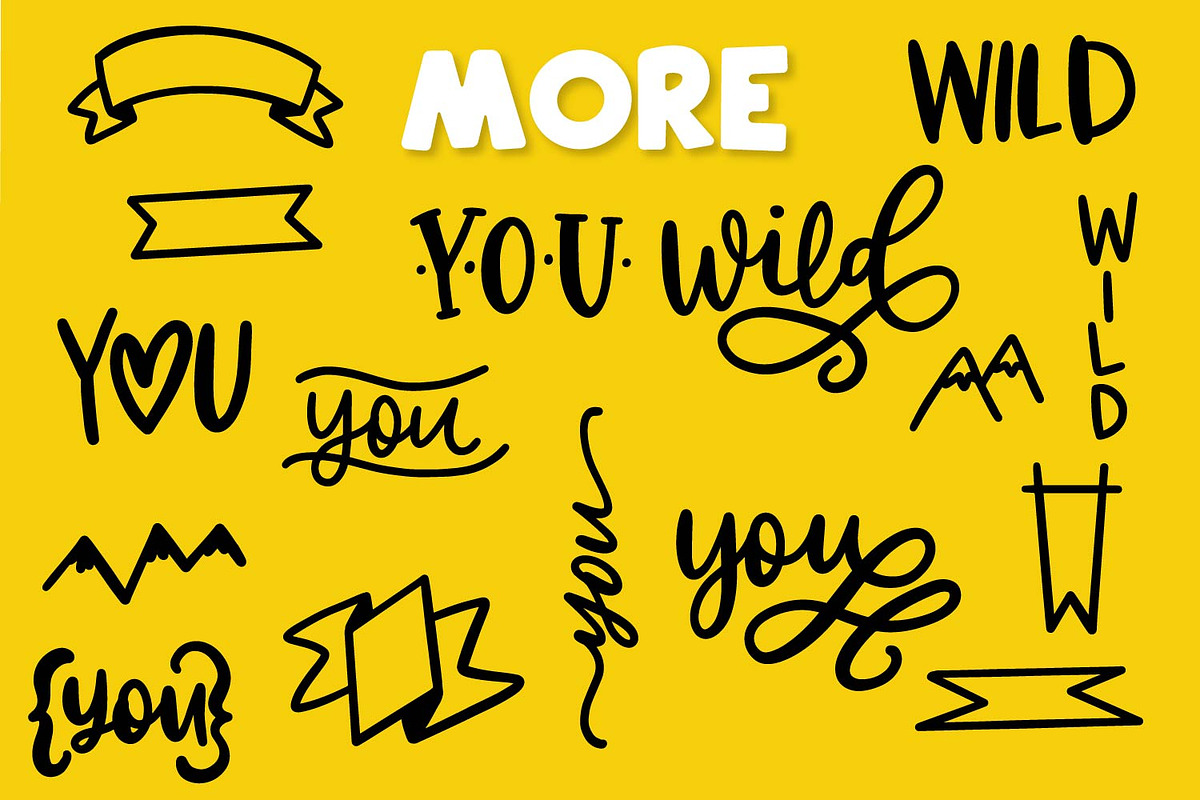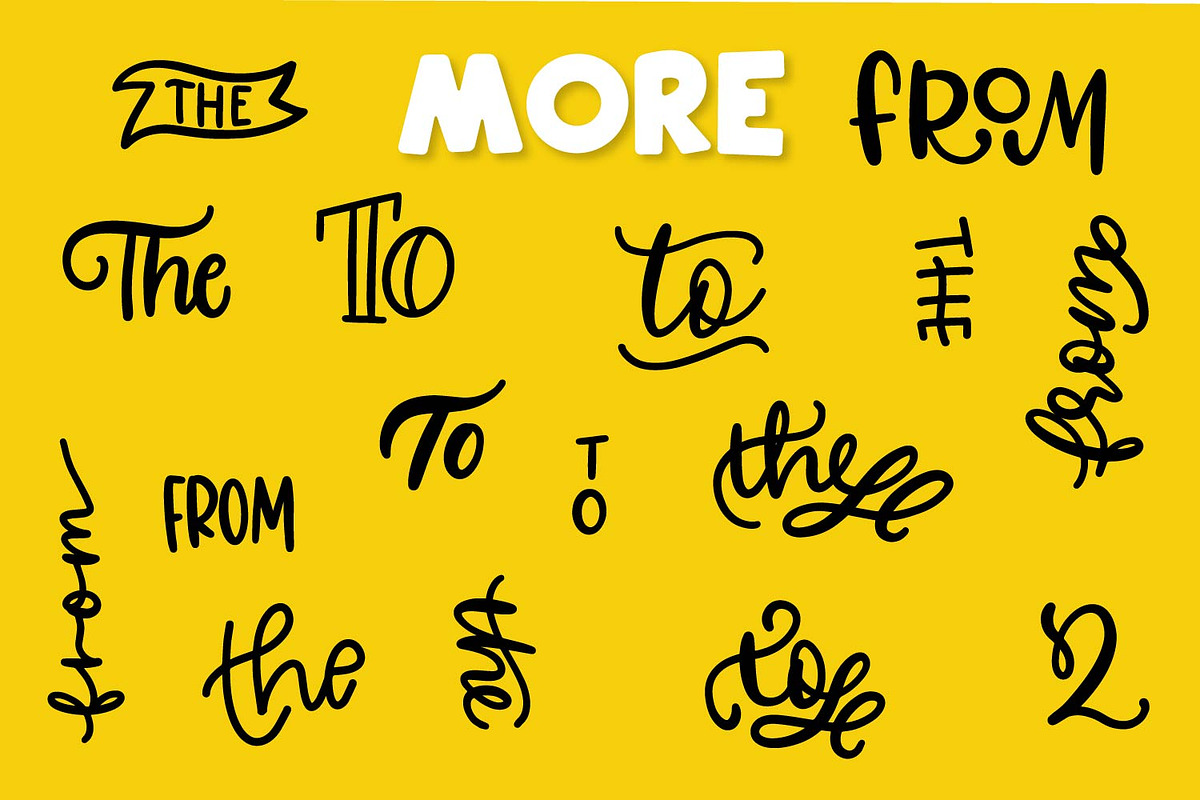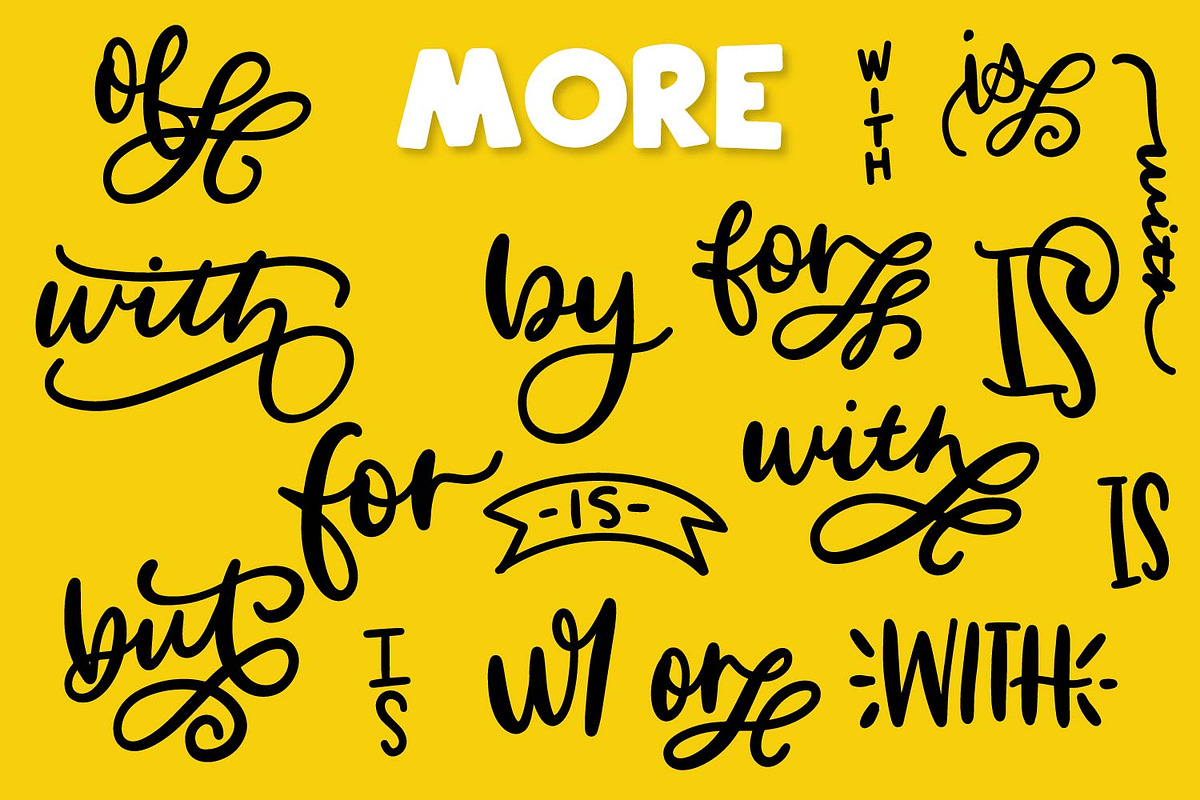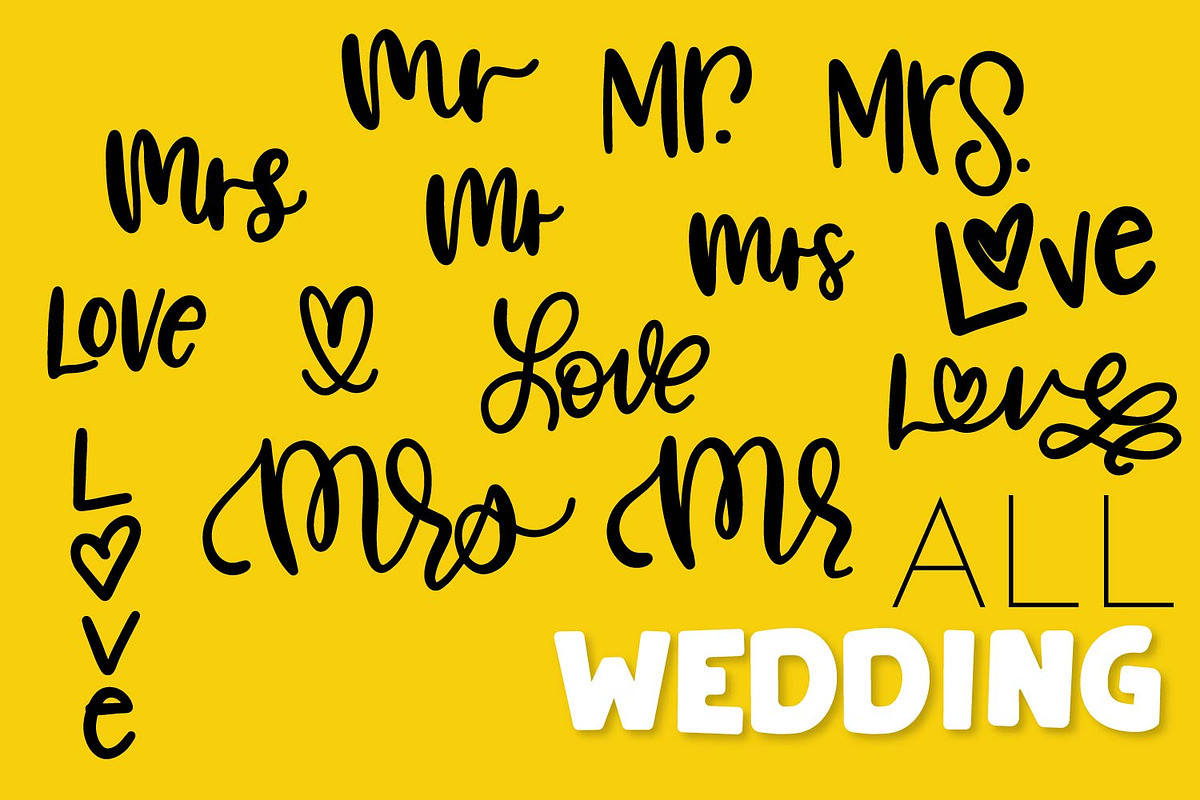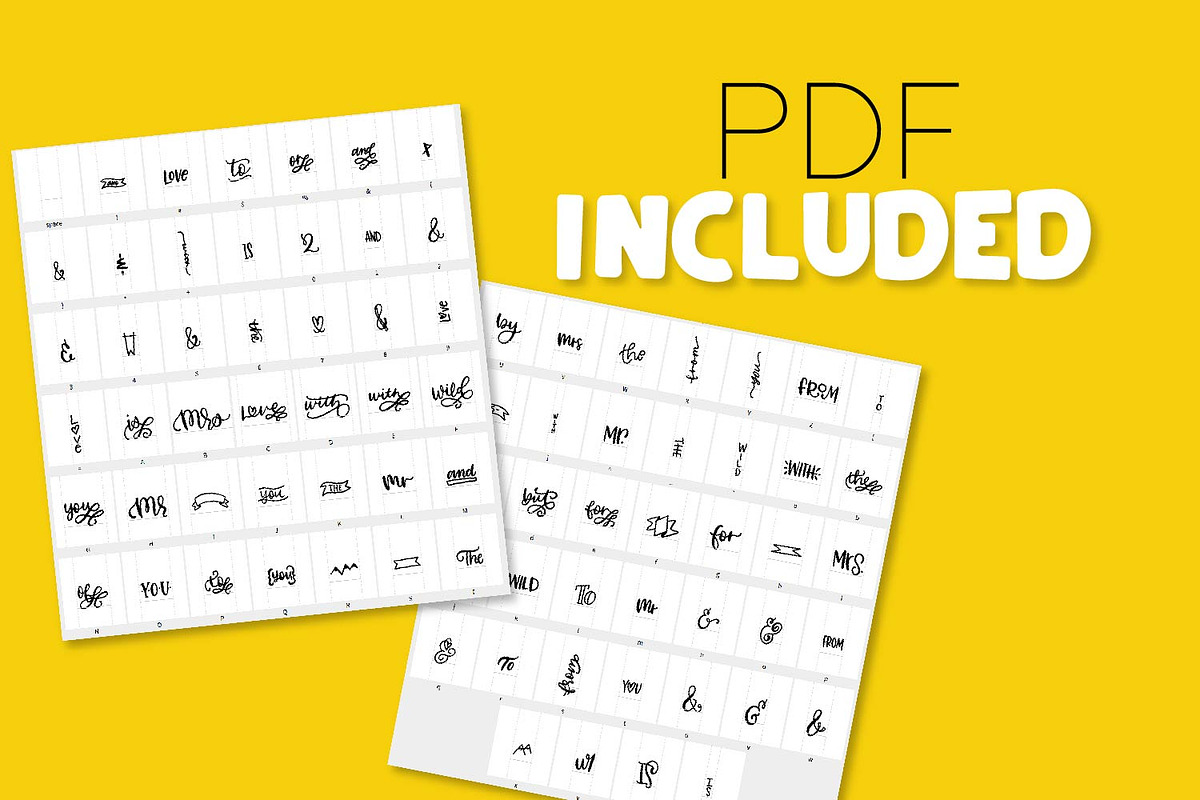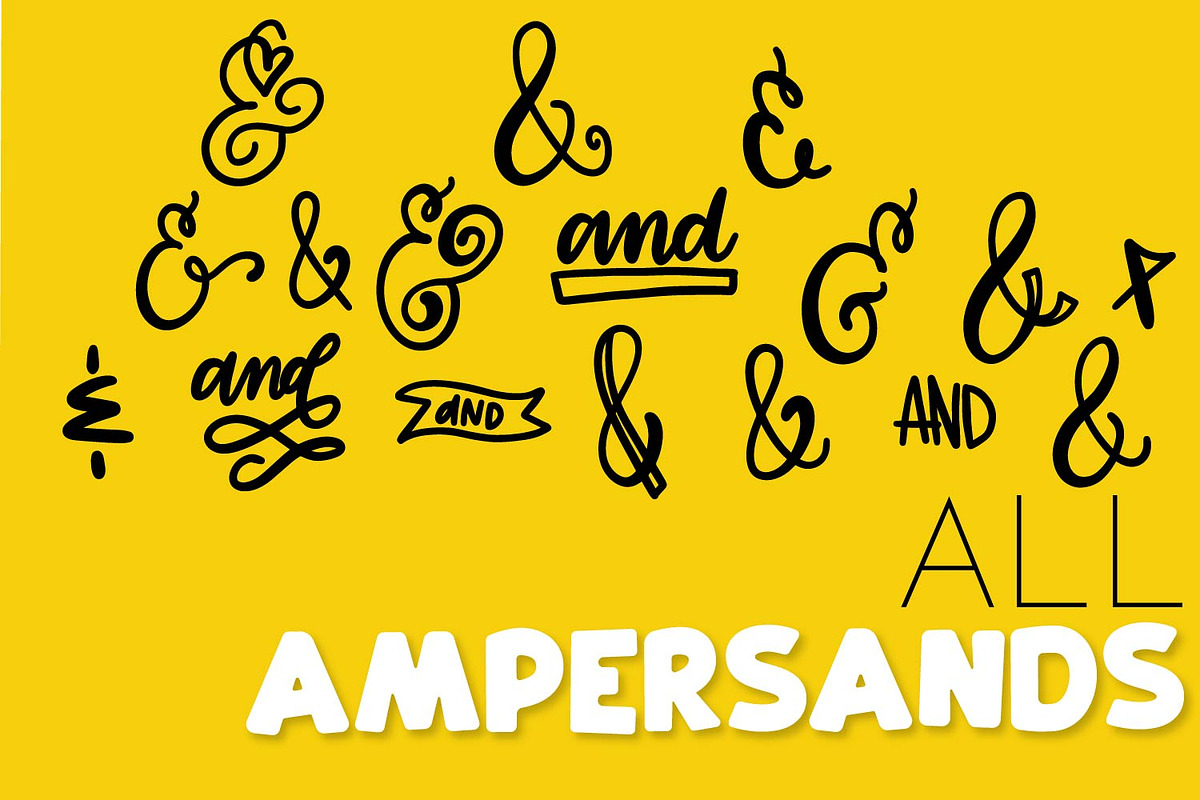
Catchwords - Dingbat Font
Catchwords Dingbat Font by CraftyLittleNodes is a font selected for branding, posters, packaging, typography.
Why Catchwords - Dingbat Font is worth a look
Catchwords - Dingbat Font by CraftyLittleNodes fits naturally into Branding, posters, packaging, typography.